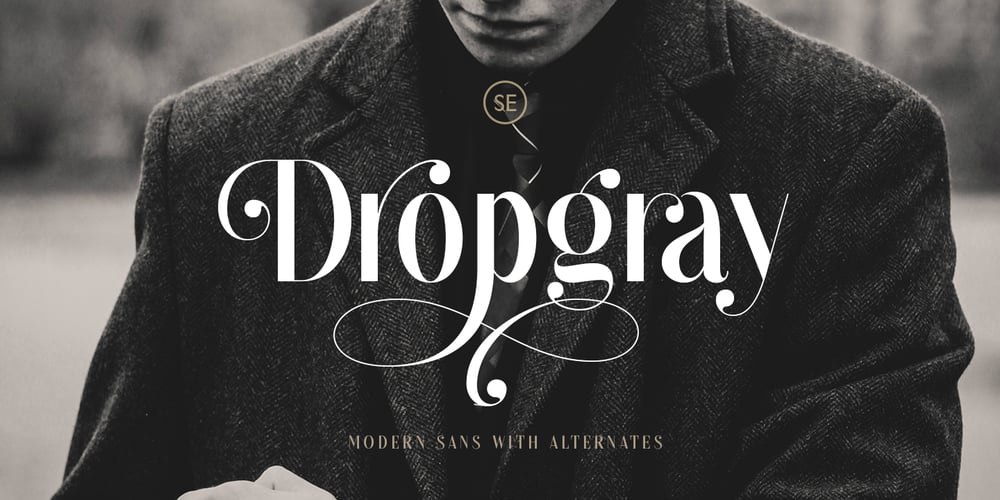
Dropgray Font Family was designed by Sarid Ezra and published by Sarid Ezra. Dropgray contains 1 styles and family package options. Dropgray is a minimalist and elegant sans serif with a bunch of alternates that will make your presentation or logo even more stunning and stand out! Dropgray also support Multi-Language and is already PUA Encoded.